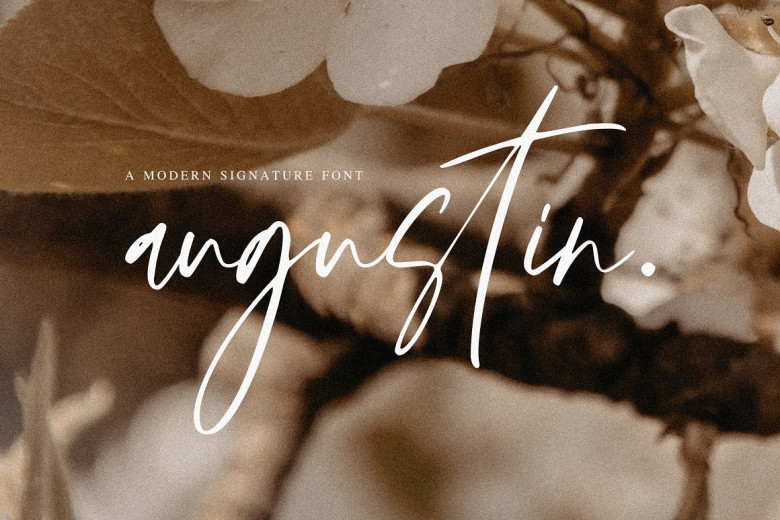
Augustin Font
Augustin Font is a modern and girly font suitable for graphic designs such as branding materials, posters, tee-shirts, prints, business cards, logos, tee-shirts photography or quotes.
Augustin Modern Signature Font